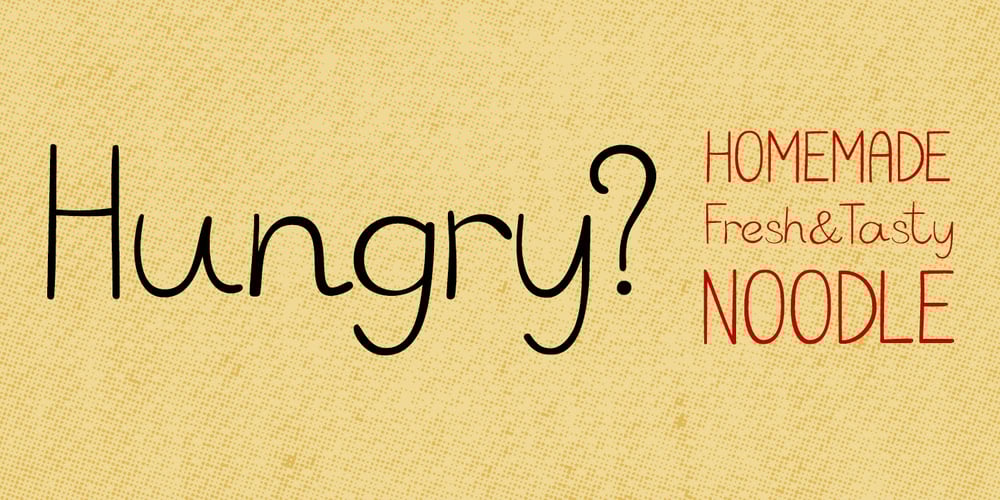
Noodle Font Family was designed by Vsevolod Vlasenko and published by Letterhead Studio-VV. Noodle contains 1 styles and family package options. Noodleis a hand made font. It’s a fun and whimsical font that would be perfect for greeting cards, toys, picture books or anything that requires a naive sensibility. Enjoy!